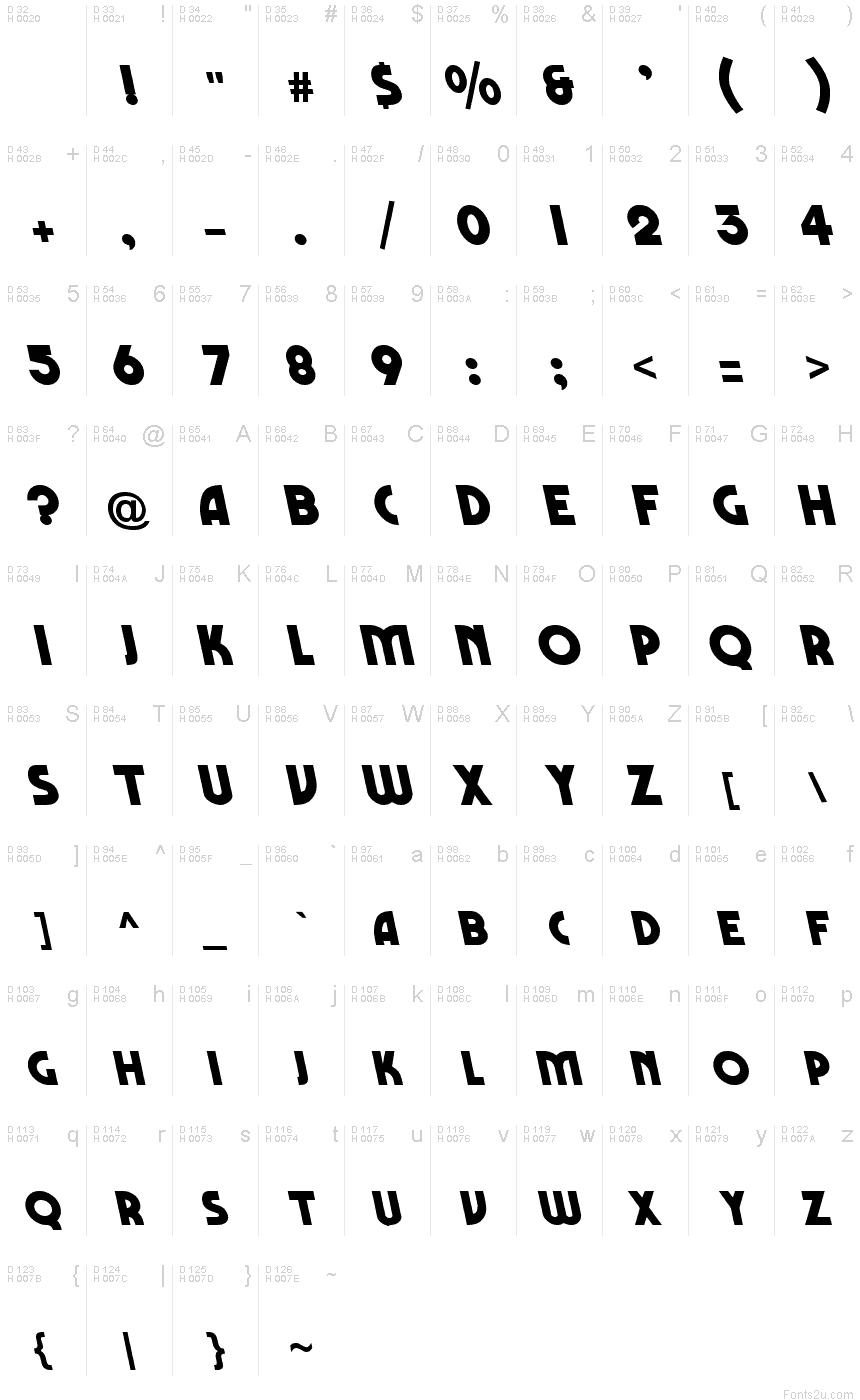
Backslide Bold
Backslide Bold font by CompuWorks is a free retro display typeface with a built‑in sense of motion. Each letter leans at a confident angle, creating a staggered rhythm that feels like it’s sliding across the line. Thick, inky strokes and tight spacing give Backslide a punchy, poster-ready presence that grabs attention even at a glance.
Using Backslide Bold, headlines feel loud, playful, and just a bit rebellious—great for posters, event flyers, logos, packaging, album covers, and game titles. This free font shines when set large and bold, letting those tilted forms do the talking. For supporting text, pair it with a clean, neutral sans serif to keep the focus on Backslide’s energetic, slanted personality.